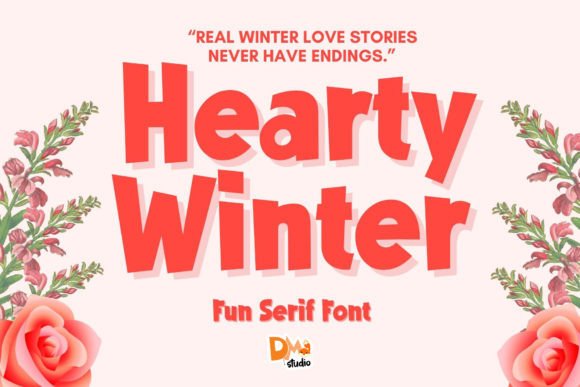
Dive into the realm of enchantment and creativity with Hearty Winter, a font family that weaves magic into every letter. Its playful, lively strokes ignite imagination, making it the perfect companion for any project that seeks to spread joy and laughter. With Hearty Winter, let your words dance off the page, carrying the spirit of childhood and the wonders of winter cheer.
As you embark on your journey with Hearty Winter, prepare to be captivated by its authentic, hand-crafted charm. Each character is imbued with a unique personality, reflecting the innocence and wonder of a child's heart. Let the curves of the letters embrace your designs, evoking the warmth of a cozy winter cottage or the thrill of a snowy adventure.
With its vast versatility, Hearty Winter effortlessly complements a myriad of creations. Whether you're designing posters for school plays, crafting invitations for festive gatherings, or creating heartwarming children's stories, this font will add a touch of enchantment to your work. Its playful nature lends itself effortlessly to branding for kid-centric businesses, bringing a smile to the faces of young customers.
Picture Hearty Winter adorning Christmas stockings, its whimsical letters spelling out names with a jolly, festive charm. Imagine it gracing holiday cards, its characters dancing across the page like snowflakes in a winter's waltz. With Hearty Winter, your designs will radiate a sense of warmth, nostalgia, and genuine delight.